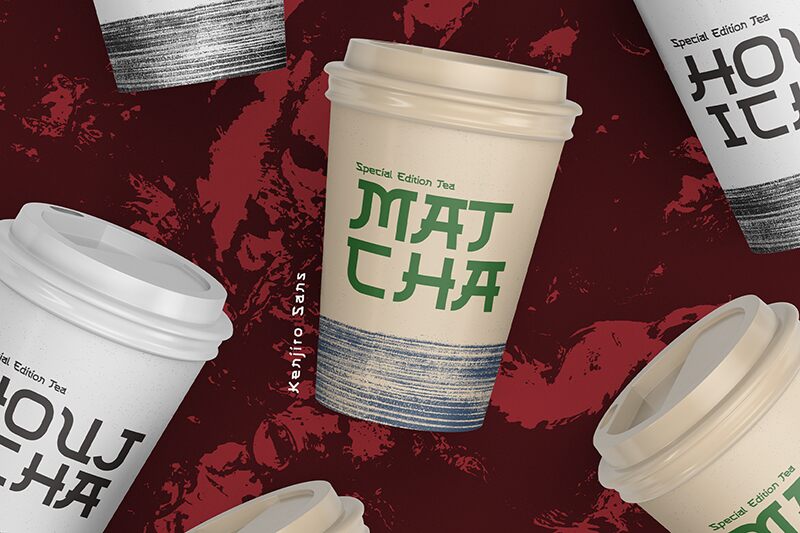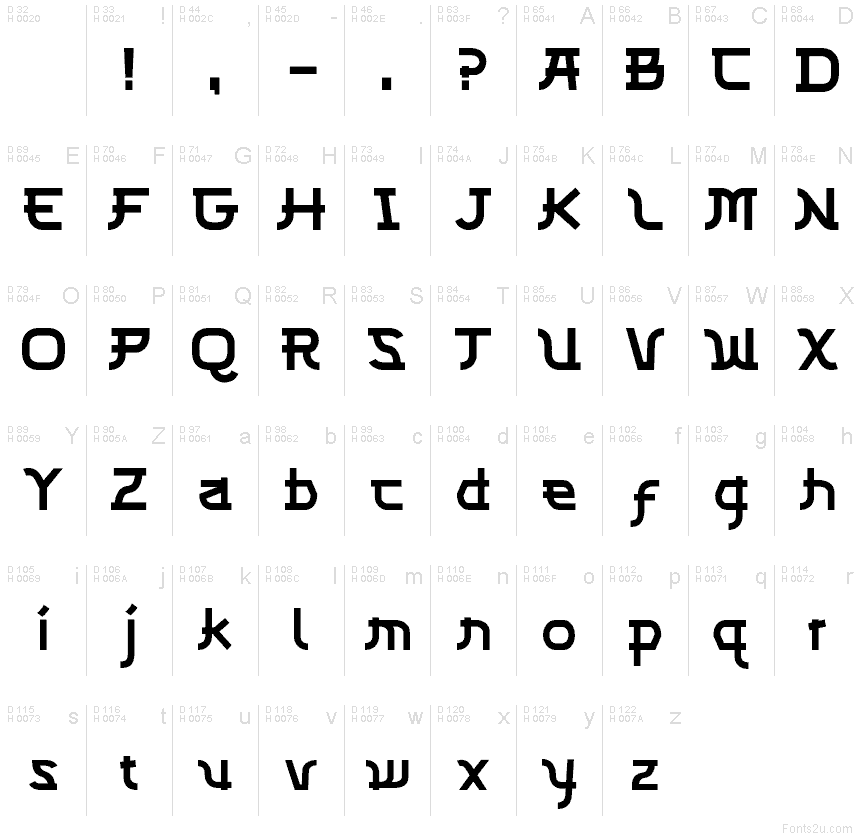
CF Kenjiro Demo Regular
CF Kenjiro font by Creatifont Studios is a free faux‑Japanese decorative typeface. Its chunky, monoline strokes snap into tight angles, then curve unexpectedly, echoing katakana rhythms without copying them. Squared bowls, clipped corners, and tidy gaps create a techy, stencil-like texture that reads crisply at larger sizes while keeping a strong, graphic beat.
Using CF Kenjiro, headlines hit with a game‑ready energy: think ramen pop‑ups, sushi menus, martial arts flyers, esports branding, convention signage, and sci‑fi splash screens. The spacing feels compact and punchy, so short words stack nicely and lock into grids. Pair this free font with a clean grotesque for body copy, and give it generous tracking when you need a calmer, airier tone.